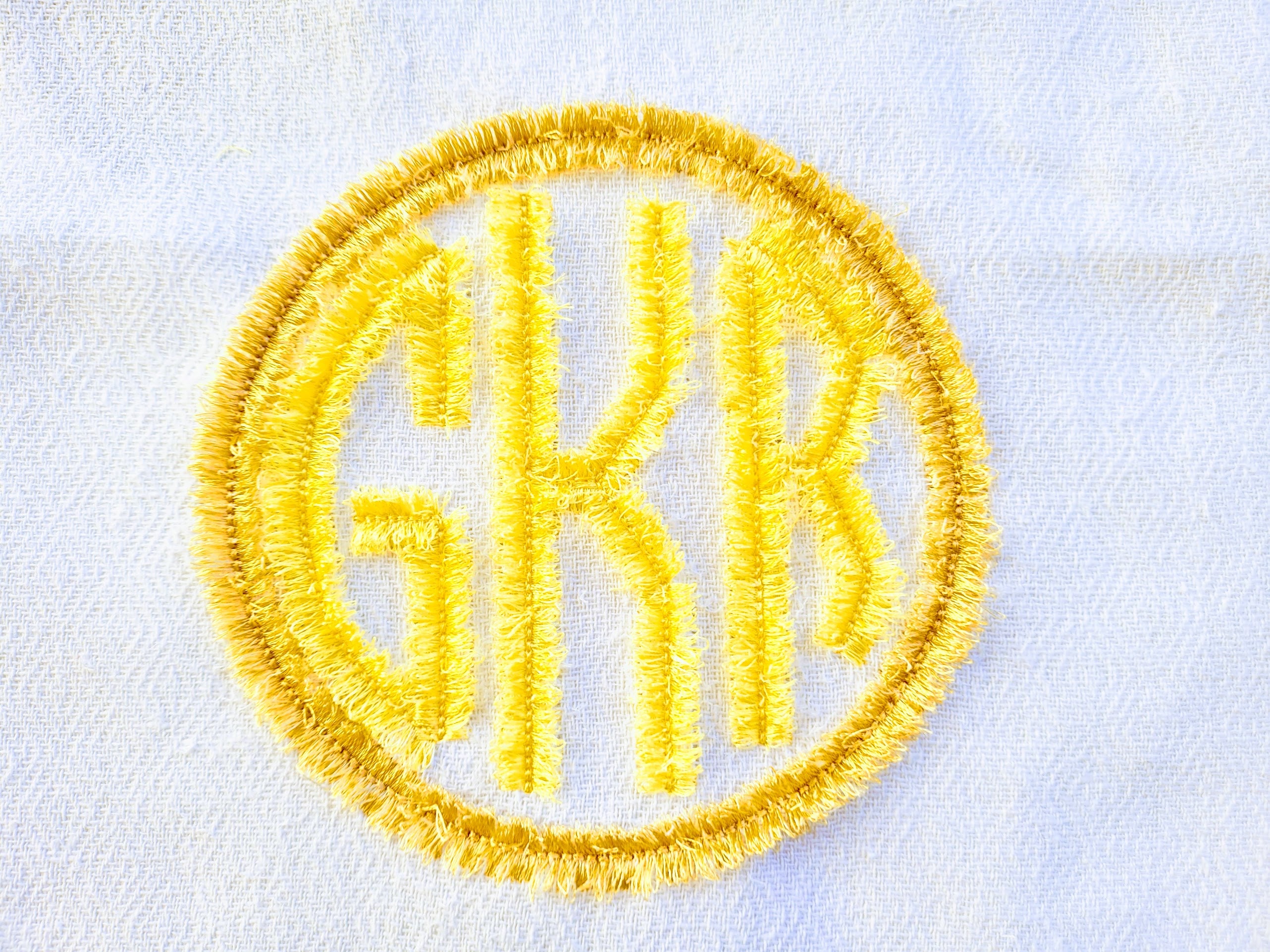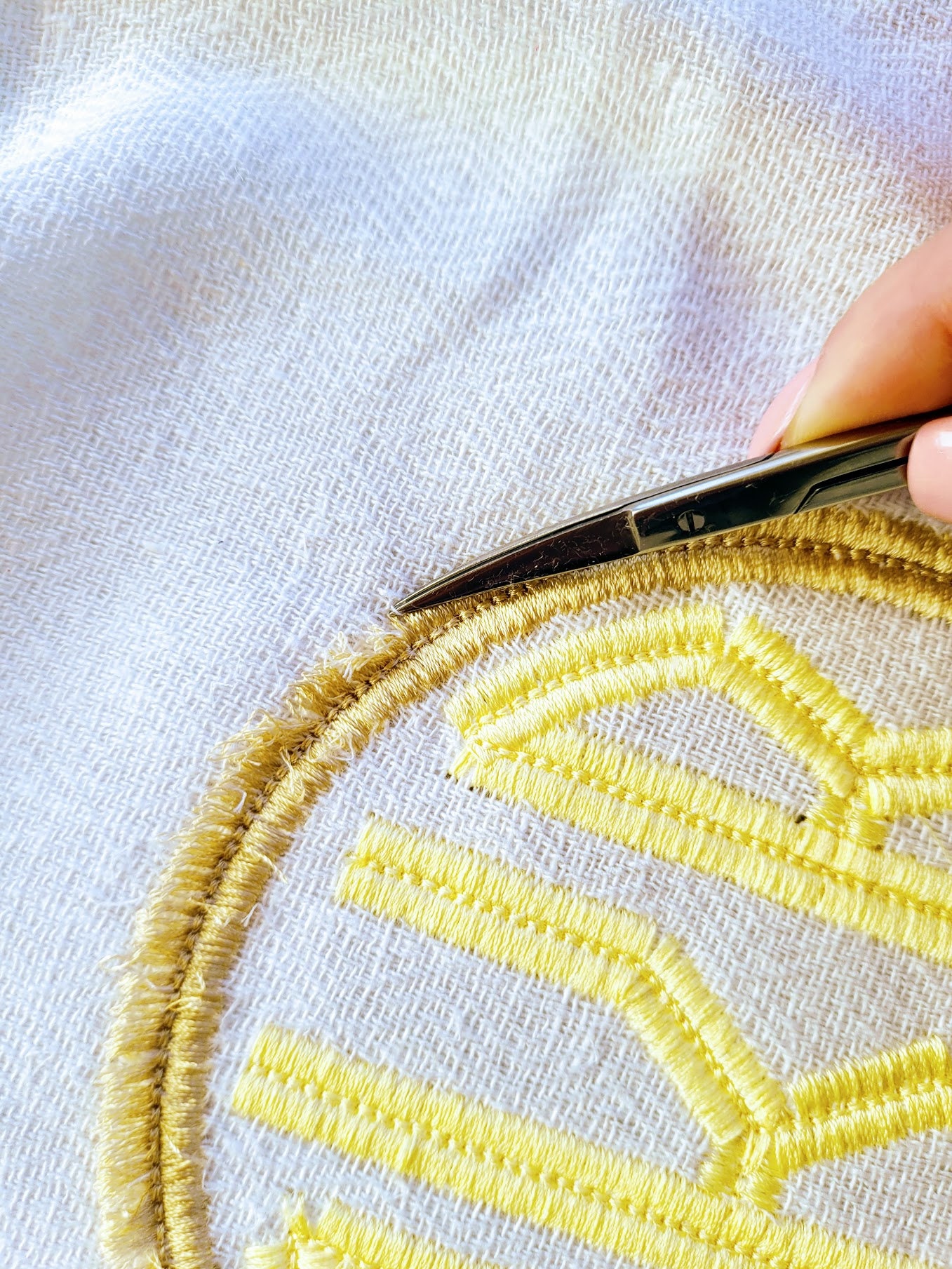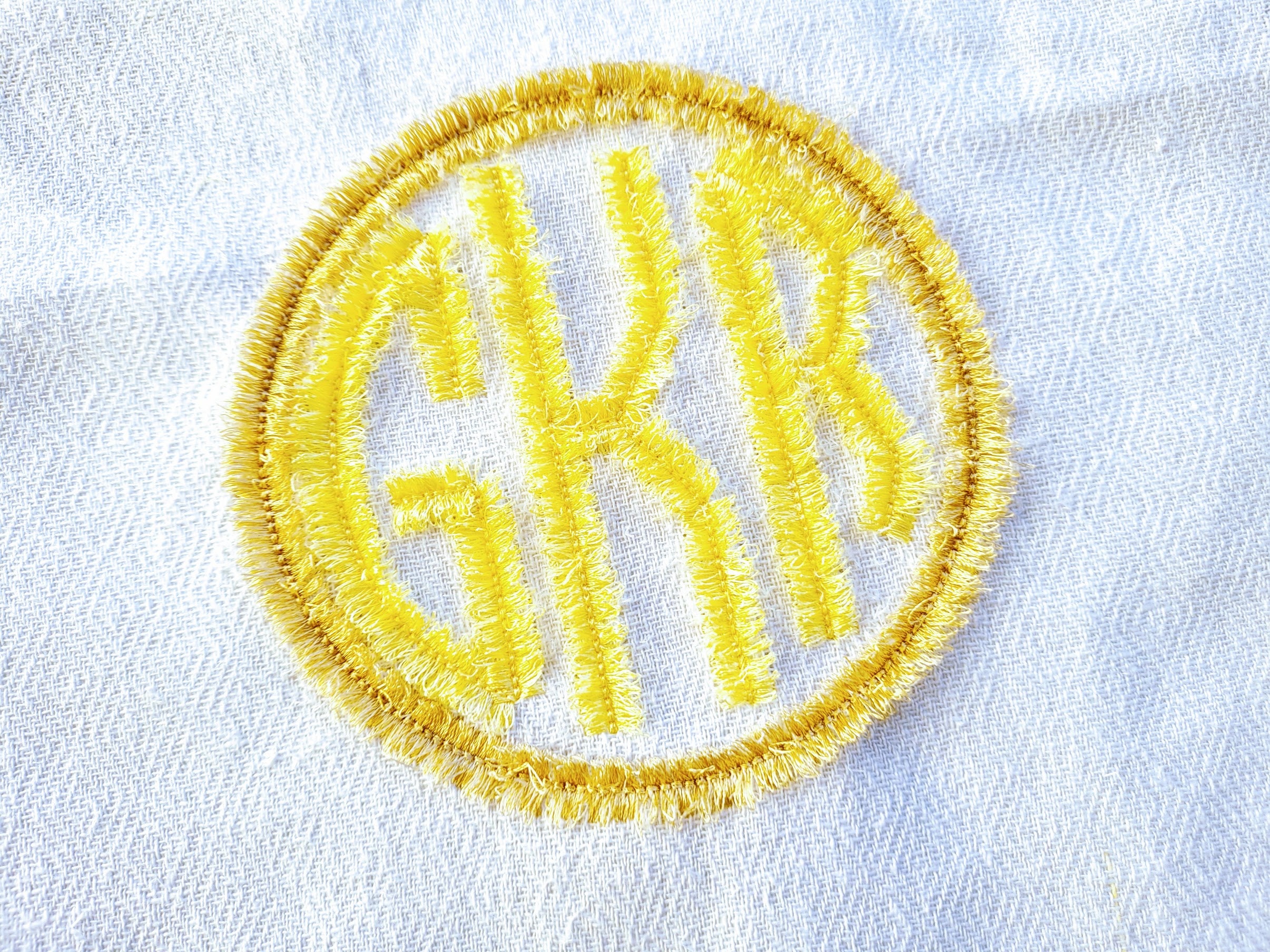
Fluffy fringed Circle Monogram FONT alphabet classic three letters kids machine embroidery designs in assorted sizes, fringe ITH in the hoop
This set includes 78 letters:
26 Center
26 Left
26 Right
...and circles in different sizes suitable to the monogram.
How to make fringe
It is easy. Stitch the design as usually appliqueing. Large satin stitches will be loose. Once you complete stitching the design turn over your hoop and cut the bobbin thread, under the satin stitches. Turn the hoop back over and fluff up the "fringe" around. Please view the last image.